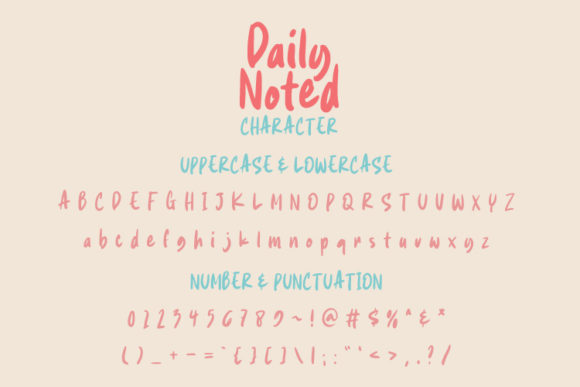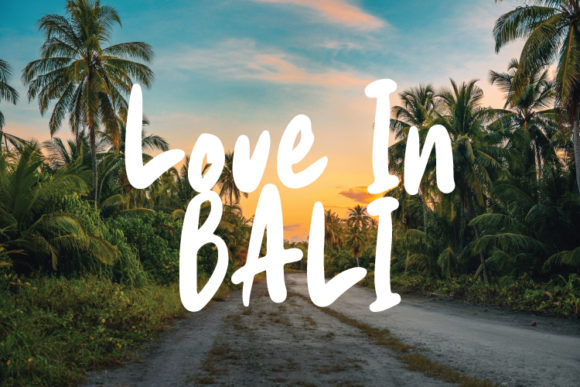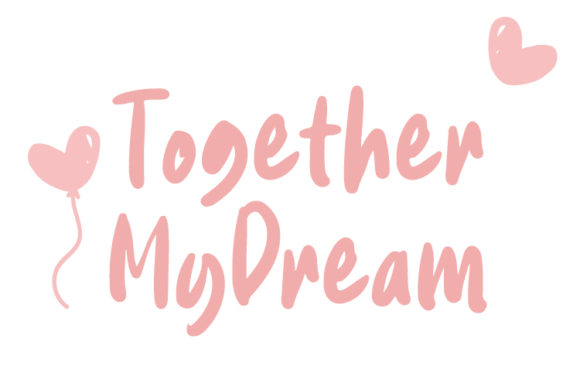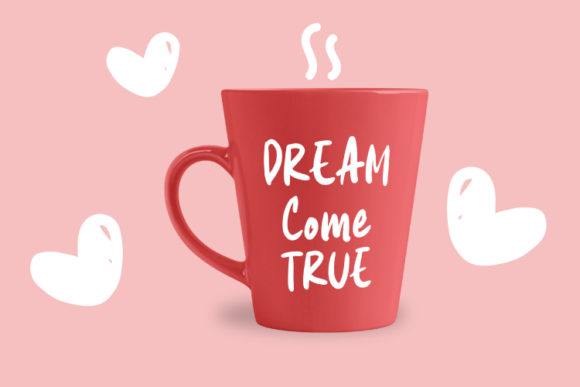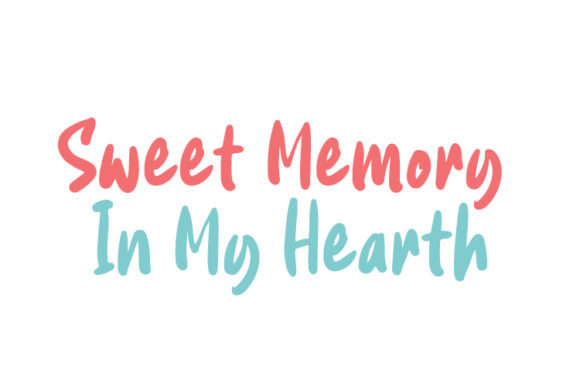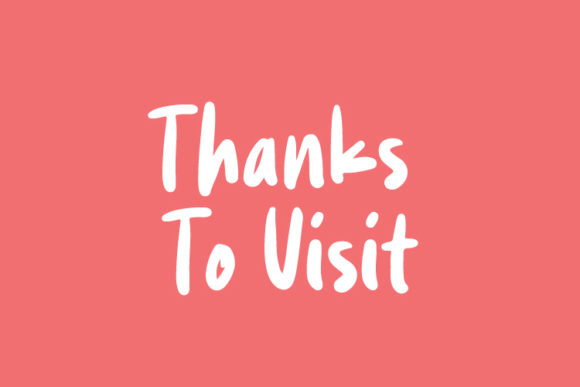
The Daily Noted Font: A Fresh and Relaxed Display Font for Creative Projects
Ah, the elusive perfect font. You know, that one design project where everything comes together seamlessly, and the font is the unsung hero that makes it all shine. For me, that moment was when I was working on a fashion campaign, and I stumbled upon the Daily Noted font. It was like the design gods had finally answered my prayers! In this article, I’ll share my experience with Daily Noted, its features, and how to make the most of it in your creative projects.
An Honest Review of Daily Noted
- ✨ Fresh and relaxed vibe that’s perfect for a wide range of projects, from posters to newsletters
- ✅ Highly legible, even at smaller sizes
- ✨ Supports OpenType features, glyphs, and stylistic alternates for added creativity
- ✅ Works beautifully with both light and dark backgrounds
While Daily Noted is an excellent font, there are a few things to keep in mind:
- ⚠️ Some users might find the font a tad too casual for very formal projects
- 🤔 Limited availability of certain language scripts
The Designer Inspiration Behind Daily Noted
While the true story behind Daily Noted remains a mystery, it’s easy to imagine that the designer was inspired by the world of fashion and lifestyle. Perhaps they wanted to create a font that would evoke a sense of relaxed sophistication, perfect for modern brands and creatives.
Q: What type of projects is Daily Noted best suited for?
A: Daily Noted is a versatile font that works well for a wide range of projects, including posters, book covers, merchandise, fashion campaigns, newsletters, advertising, magazines, greeting cards, album covers, and more!
Q: Is Daily Noted a script font?
A: No, Daily Noted is a display font with a sans-serif style. It has a fresh and relaxed vibe, but it’s not a script font.